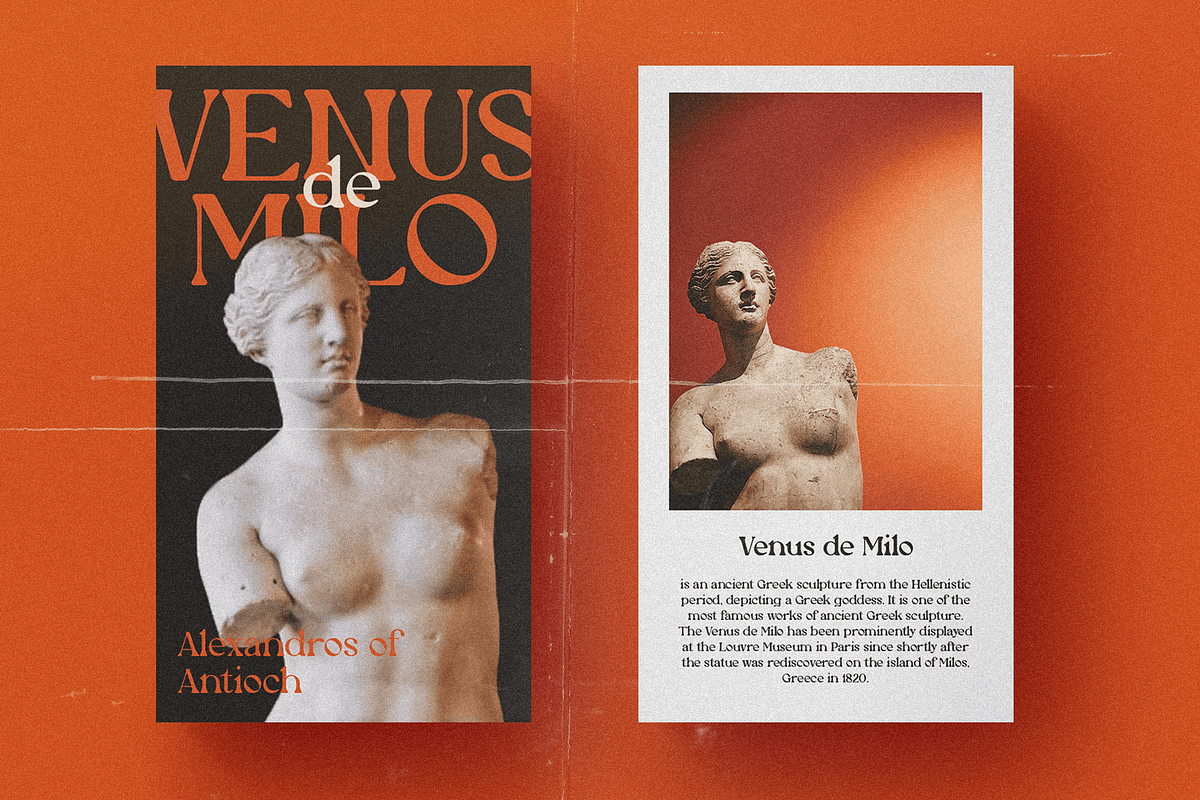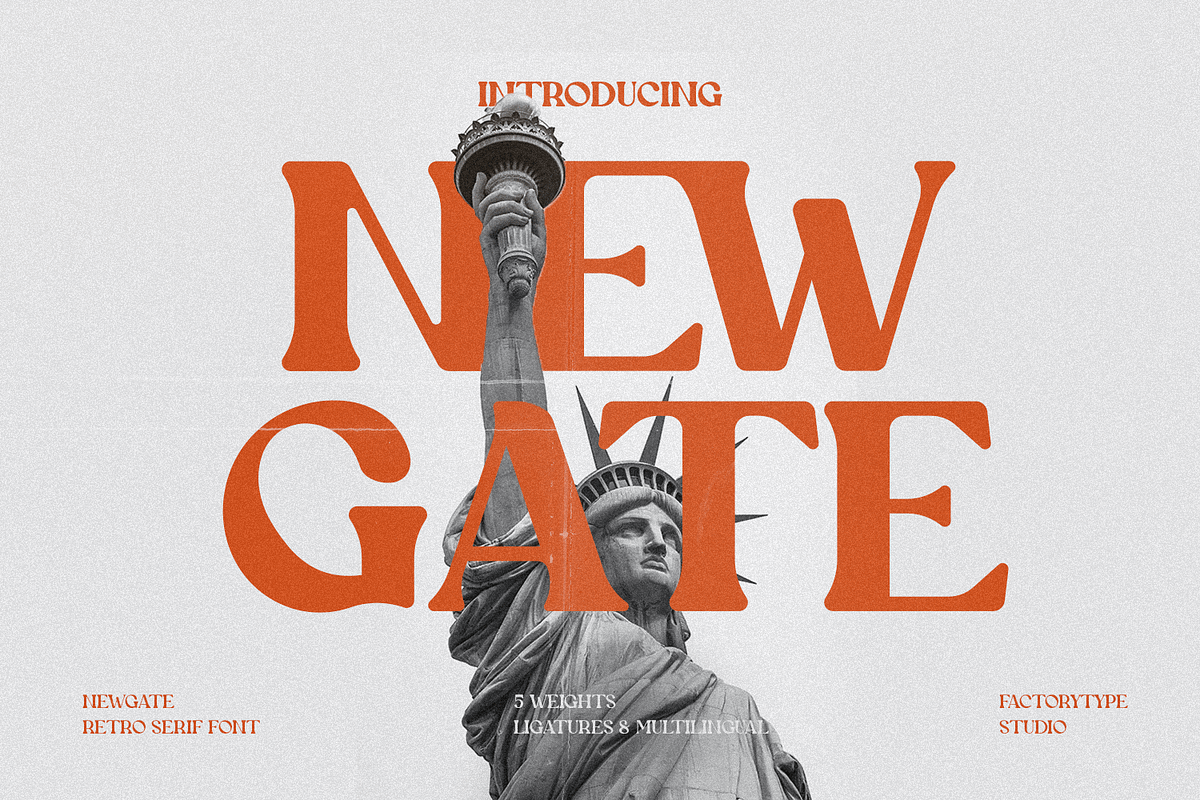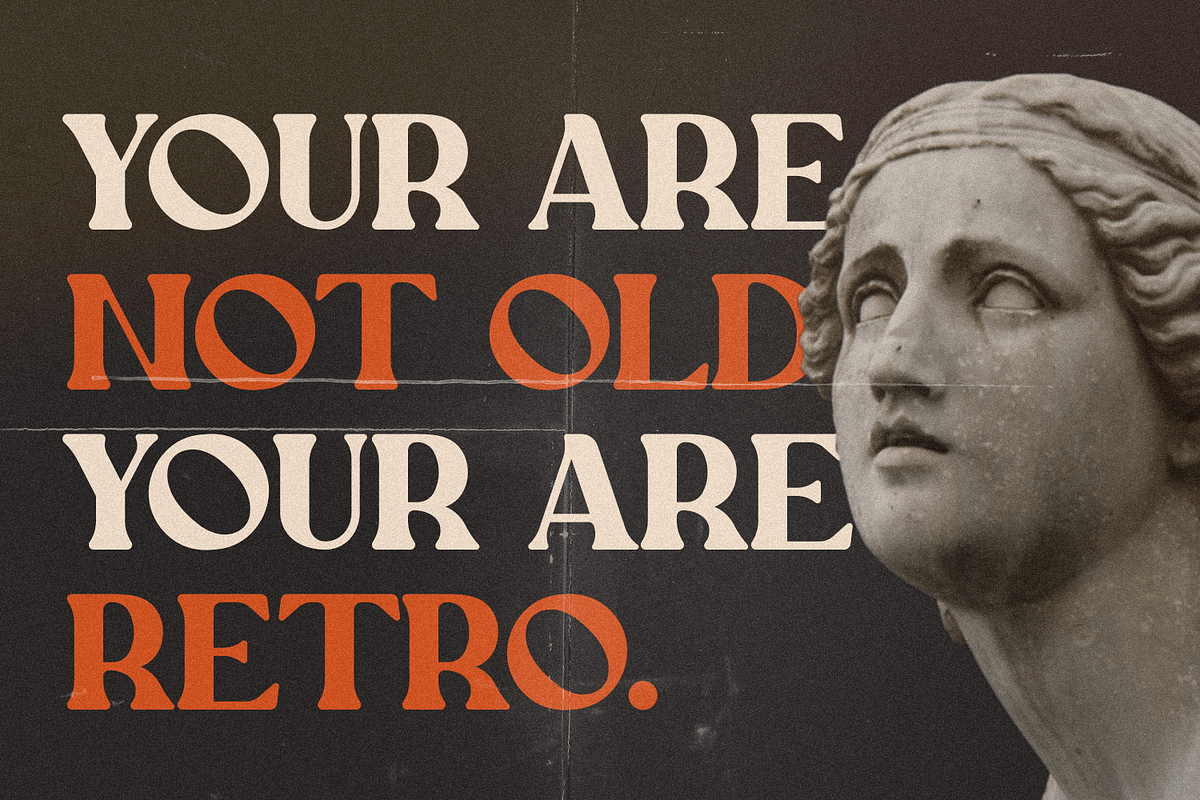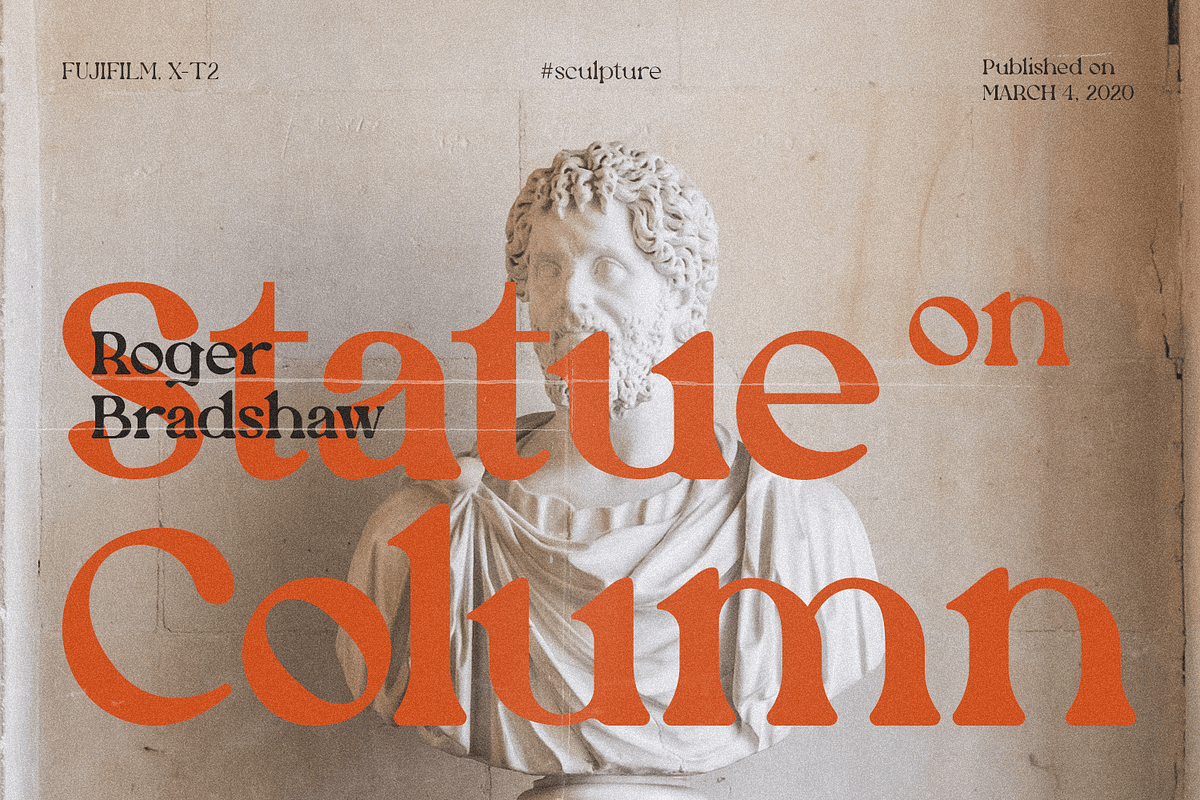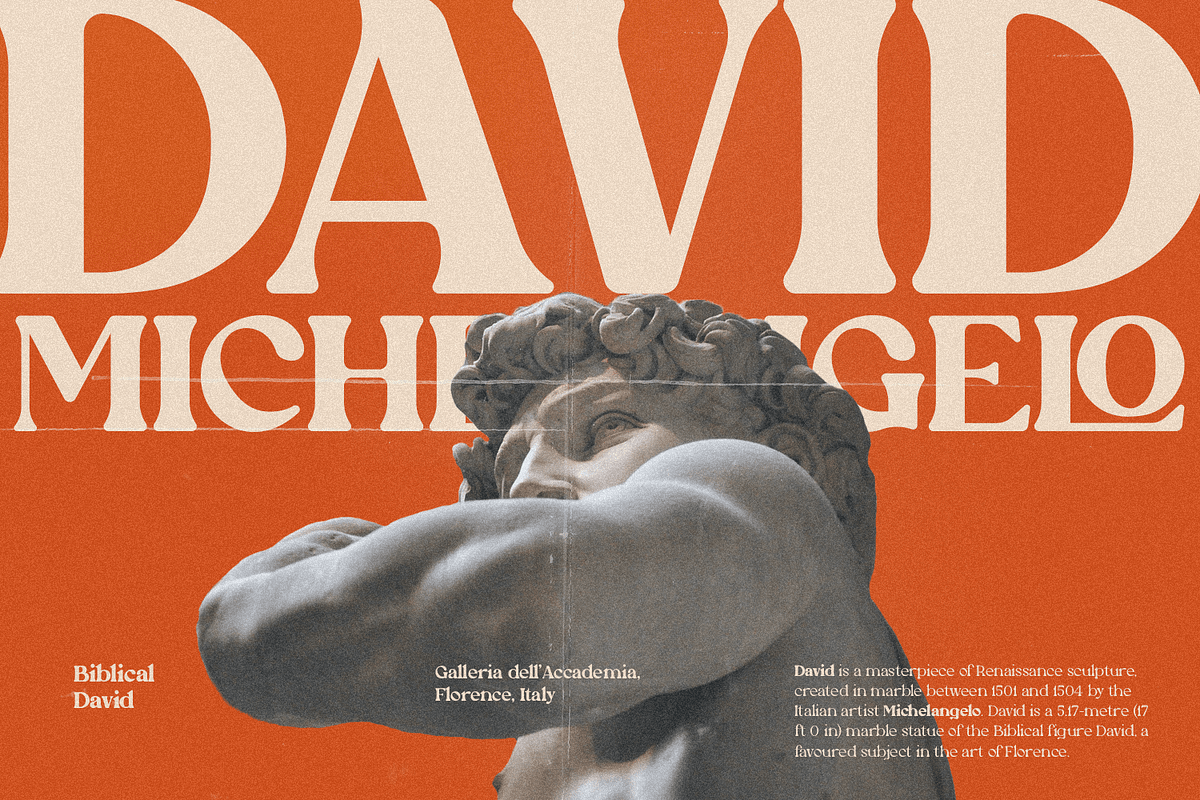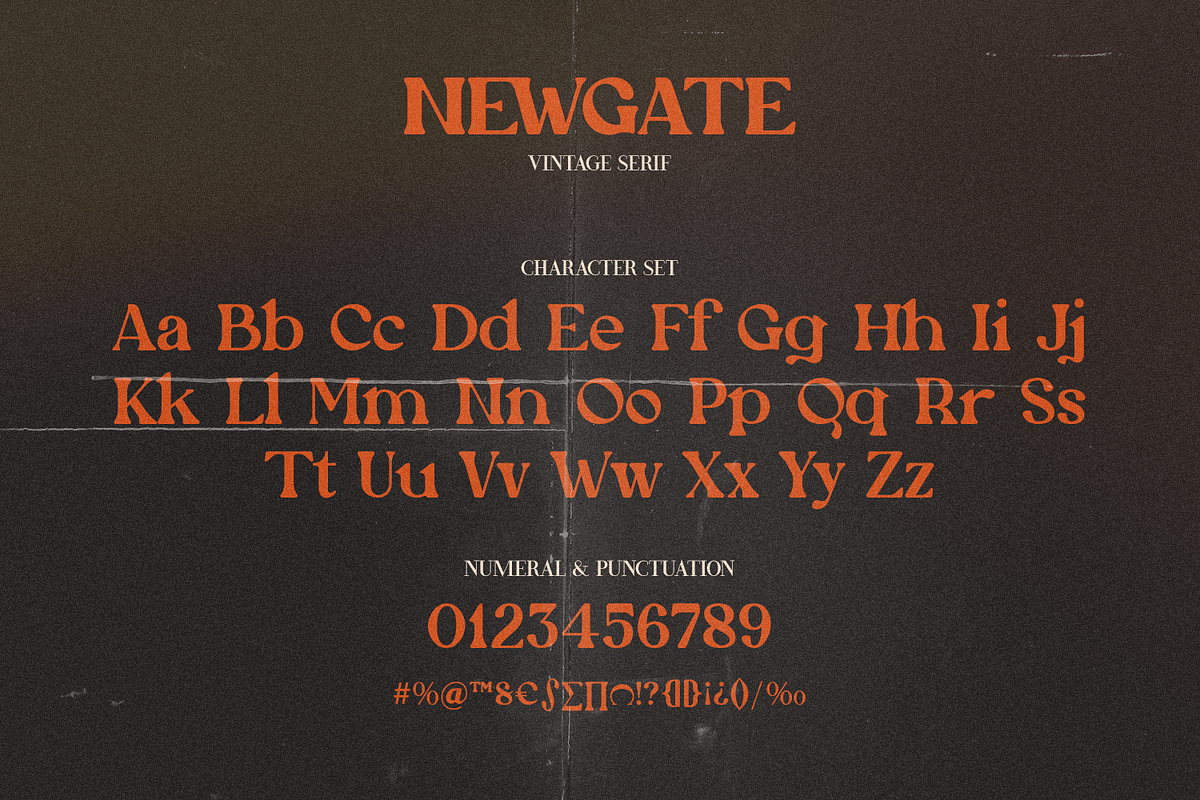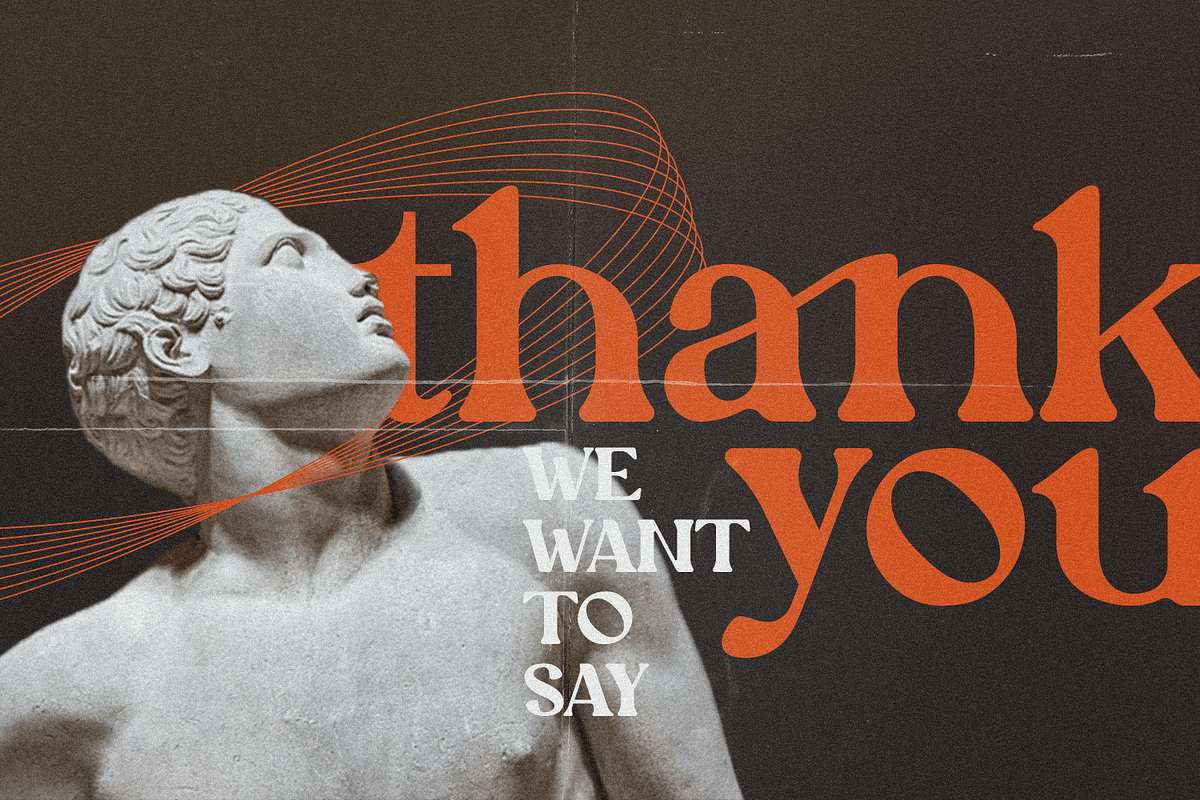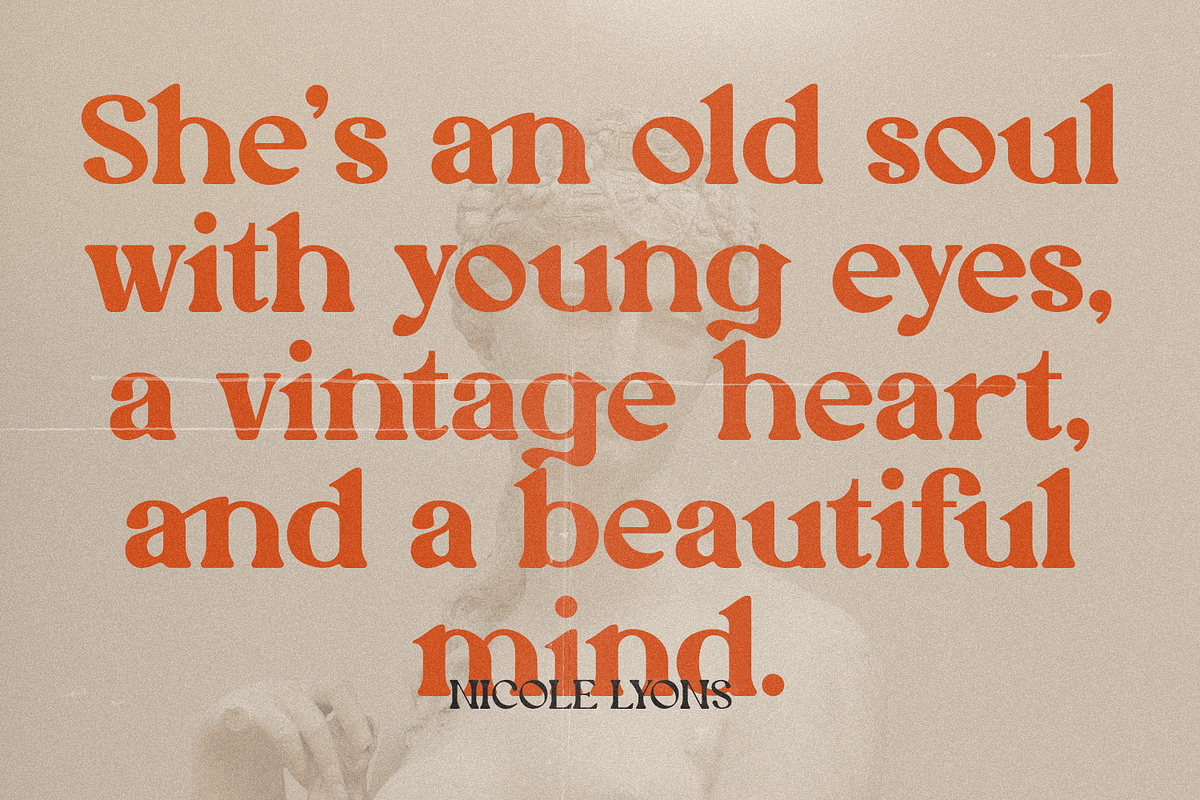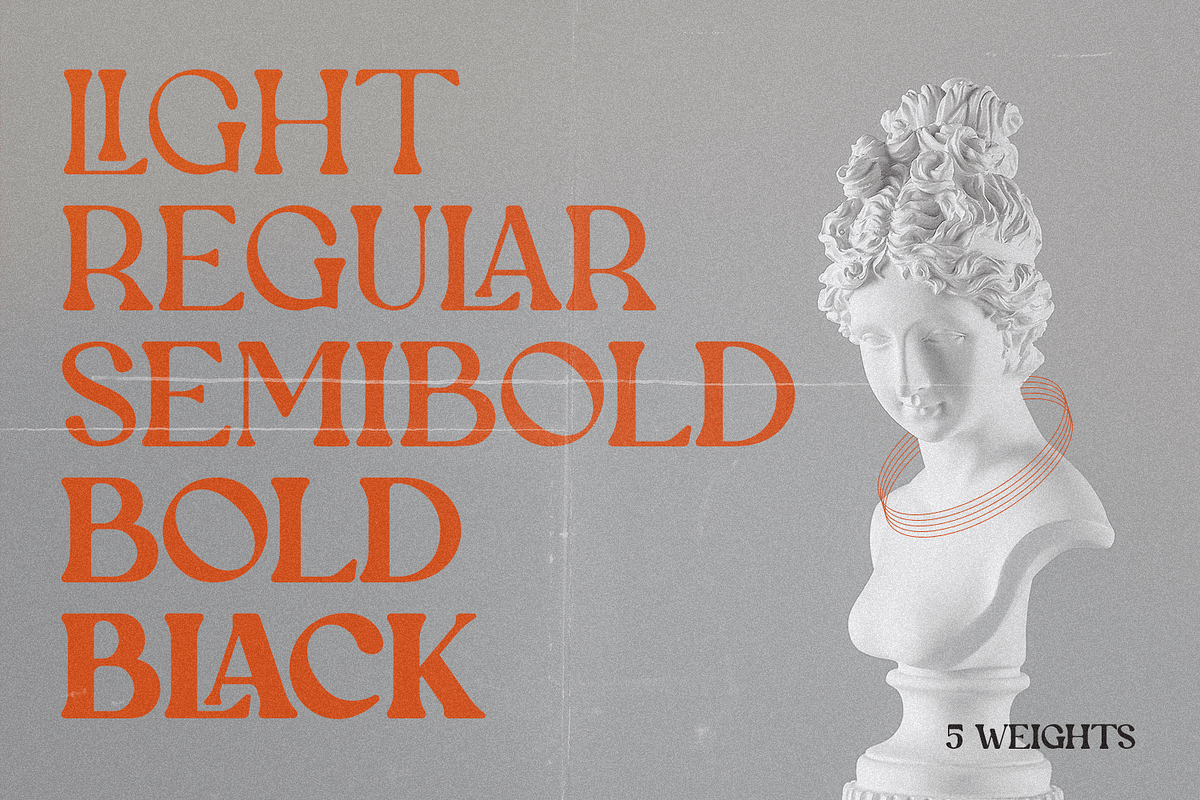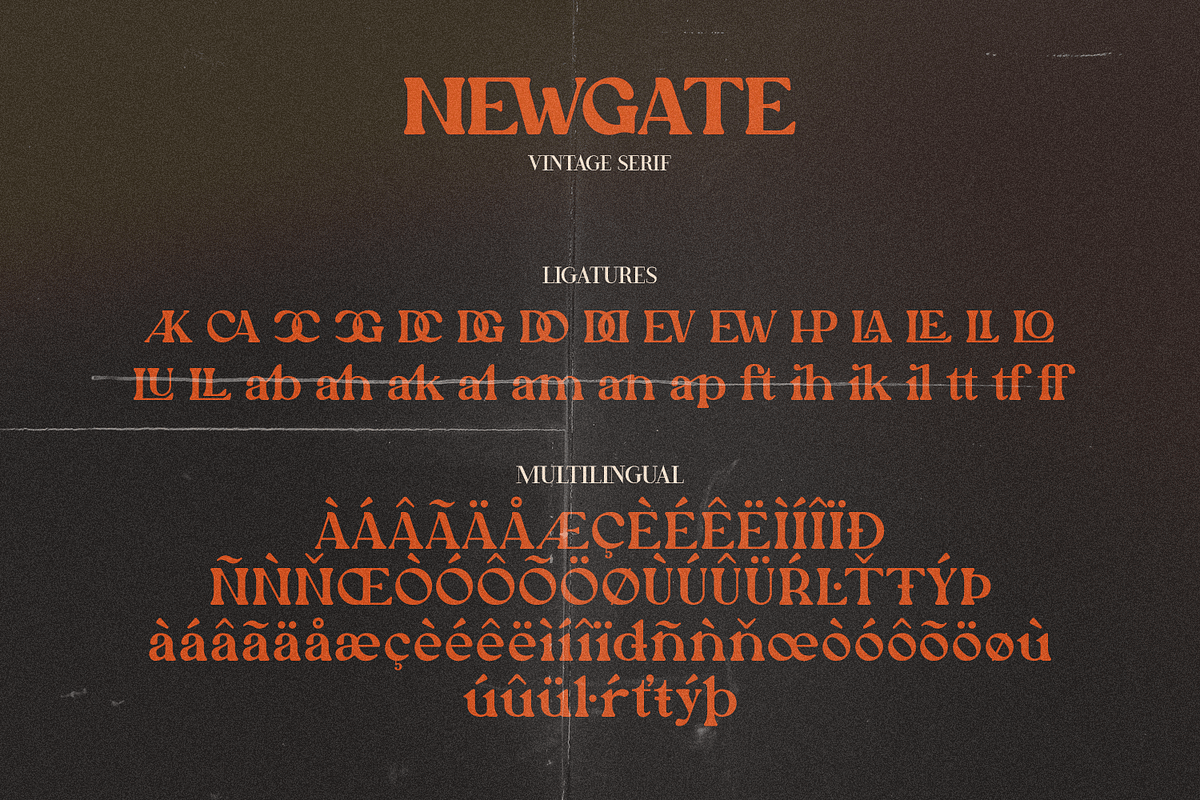
Newgate
Introducing NEWGATE, a trendy font that is both retro and contemporary, is now available. Its thick curves give it a 70s groovy vibe, while the serifs return it to tradition. NEWGATE fits right in with those vintage moodboards and logos. It has separate lower and uppercase letters, as well as numbers, punctuation, and multilingual letters. The Ligature fonts will come in handy for anything your imagination can dream up!
- 5 Weights (Light, Regular, Semibold, Bold, Black)
- Stylistic Ligatures
- Multilingual Support for ä ö ü Ä Ö Ü ...